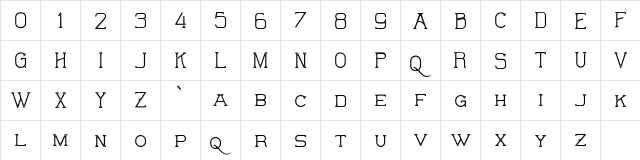
The Wild Hammers Demo Regular
| Foundry | Eric Kurniawan |
| Designer | Burntilldead |
Design Context for The Wild Hammers Demo Typeface
The Wild Hammers Demo is a composed and adaptable typeface that performs quietly and consistently across a wide range of design contexts.